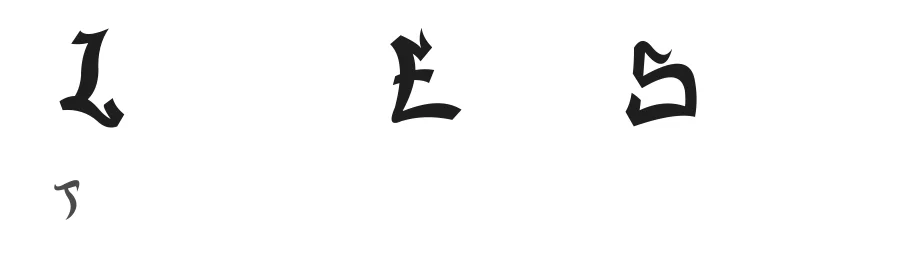
About Klex Font
A calligraphic alphabet in bold/light brushstrokes
Actually, a typeface like this one should be written with a wide brush; this one was written with a thick, pointed brush.
Thus were created the round or misshapen ends of the stems, and the sometimes excessively pointed ends of the hairlines. For each character of KLEX, the large brush was dipped in the ink anew. Using this method, the forms turned out very soft, in spite of their geometrical rigidity. The individual characters are heavy, simple, and monumental, so that they are also suitable as initials.
Klex Font